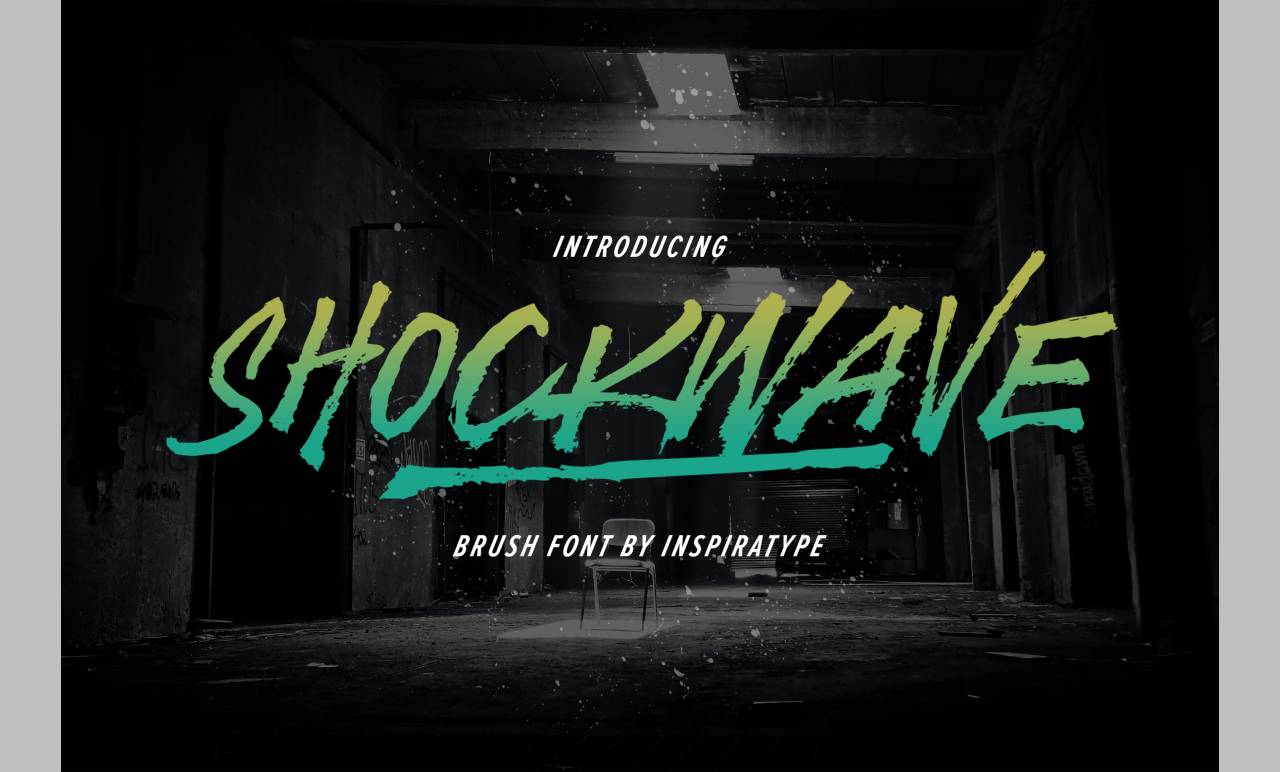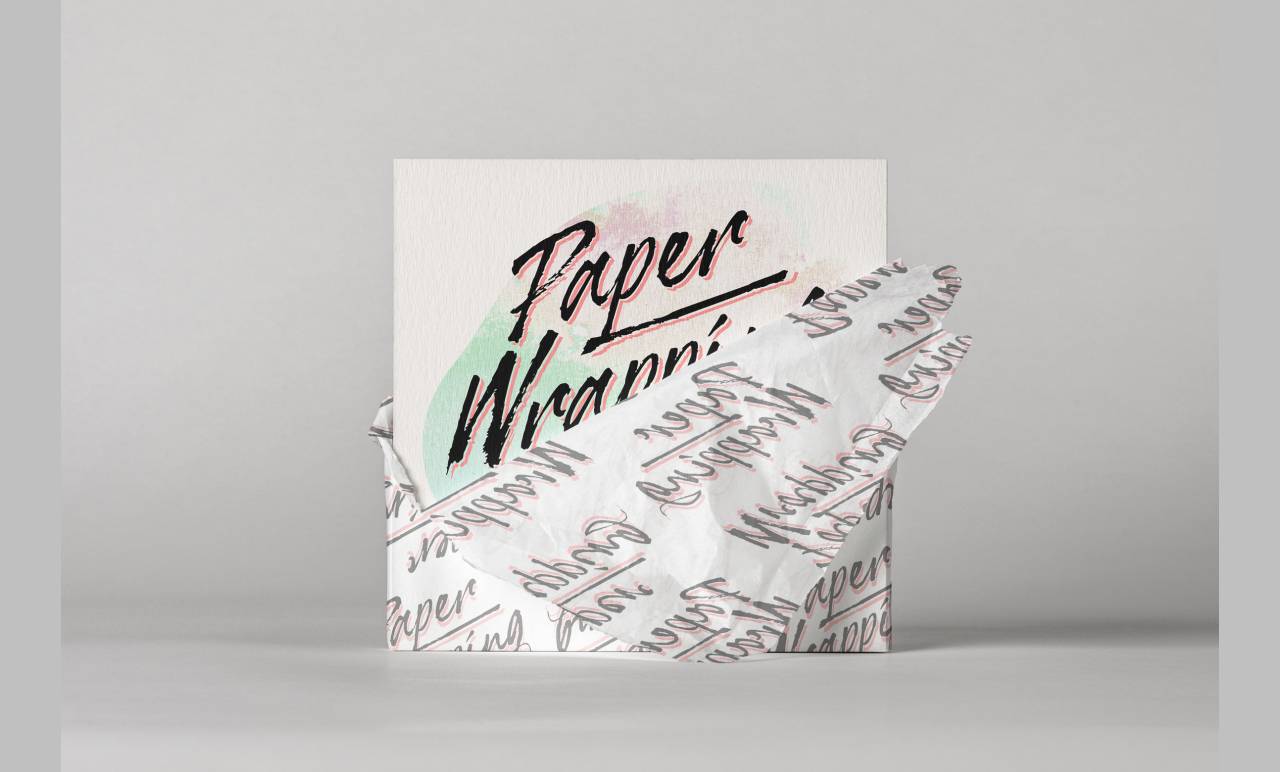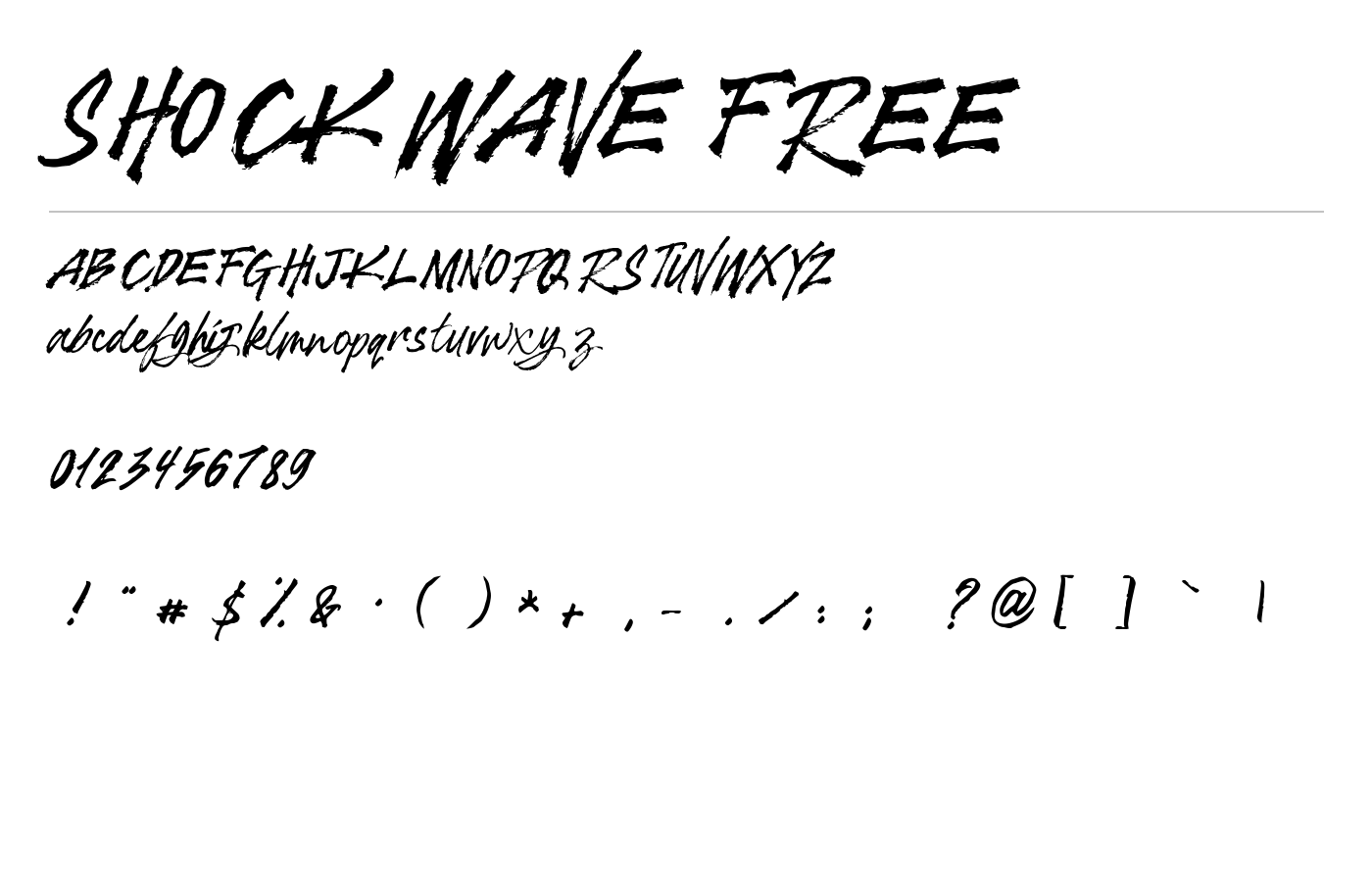
Shockwave is a bold, energetic script font with a hand-brushed style that exudes a raw and dynamic feel. Its sharp, uneven strokes and slightly condensed letterforms give it a sense of movement and intensity, making it ideal for headlines, posters, and brands seeking a striking, edgy personality. This font works best where a bold, informal, and expressive look is desired, such as in sports, entertainment, or urban-themed designs.
Shockwave Font
About Shockwave Font
| Font family | Shockwave Font |
| Designer | inpiratype |